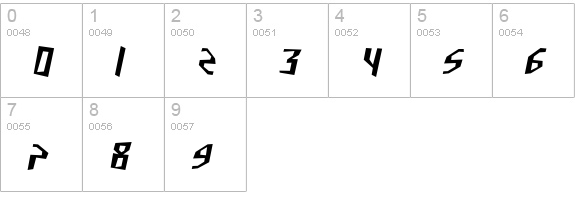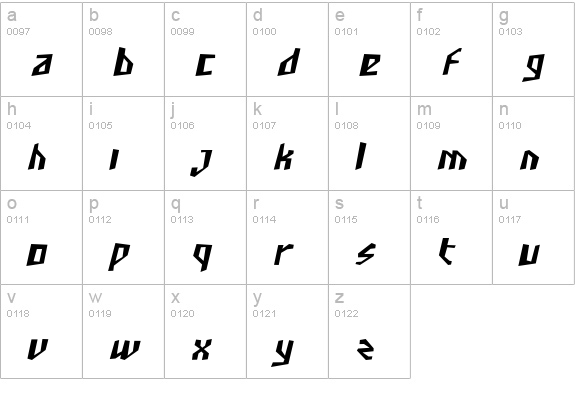
SF Junk Culture Condensed Oblique Font Details
SF Junk Culture Condensed Oblique is a distinctive, condensed-width, italic variant in the SF typeface family \xE2\x80\x94 well suited to design and typography projects.
SF Junk Culture Condensed Oblique font is a remarkable typographic masterpiece that seamlessly combines the rebellious spirit of street art with the futuristic aesthetics of science fiction. This one-of-a-kind font is perfect for adding a touch of edgy sophistication to any design project. The condensed oblique style of SF Junk Culture gives it a sleek and dynamic appearance that is sure to catch the eye. Its bold and slanted letterforms exude a sense of energy and movement, making it an excellent choice for conveying a sense of urgency or action. What sets SF Junk Culture Condensed Oblique font apart from the rest is its unique fusion of urban decay and technological advancements. The jagged edges and distressed textures mimic the gritty graffiti found in abandoned alleyways, while the sleek lines and futuristic elements hint at a world of advanced technology and artificial intelligence. This font is not only visually striking but also highly versatile. Whether you're creating a poster for a music festival, designing a book cover for a dystopian novel, or developing a logo for a cutting-edge tech company, SF Junk Culture Condensed Oblique font will add a touch of urban coolness and innovation to your project. And the best part? SF Junk Culture Condensed Oblique font is completely free! That's right, this exceptional font is freely available to download at FontsMarket.com. You can elevate your designs without breaking the bank, making it a perfect choice for designers, artists, and creatives on a budget. So why wait? Take your designs to the next level with SF Junk Culture Condensed Oblique font. Download it for free at FontsMarket.com and start adding a dose of rebellious charm and futuristic intrigue to your projects today.